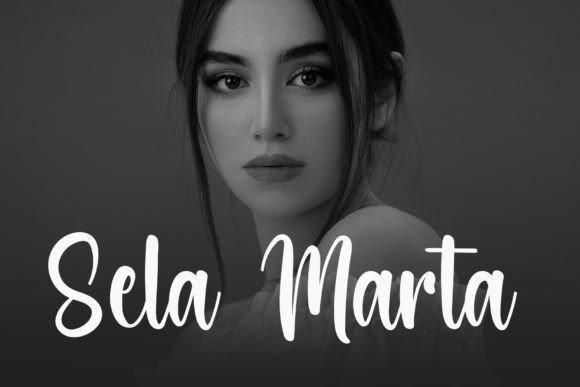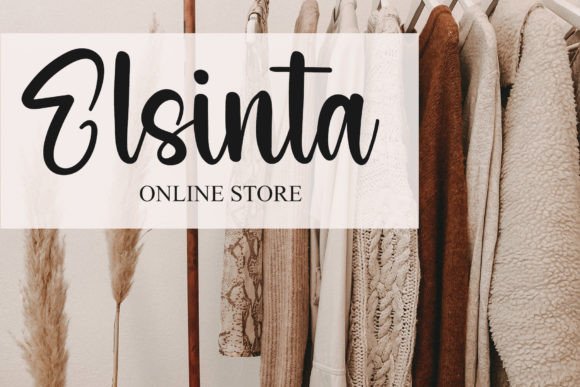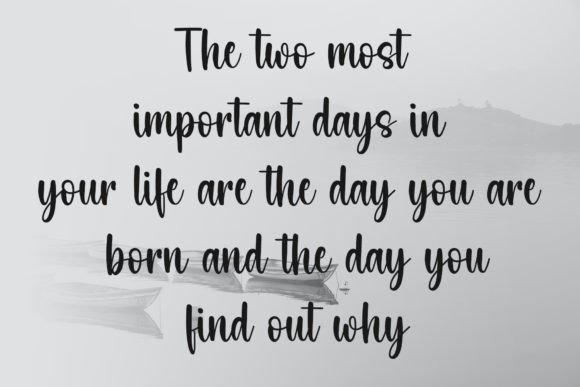
Introduction to Handsel Font
Handsel is a sweet and cursive handwritten font.
📌 Product Name Handsel Font
👤 Author YanStudio
This gentle font will look gorgeous on a variety of design ideas It will add a joyful and romantic touch to each of your projects.
Handsel Font offers exceptional quality and versatility, making it a valuable addition to your design toolkit. Whether you’re creating for personal projects or commercial use, Handsel Font delivers professional results.